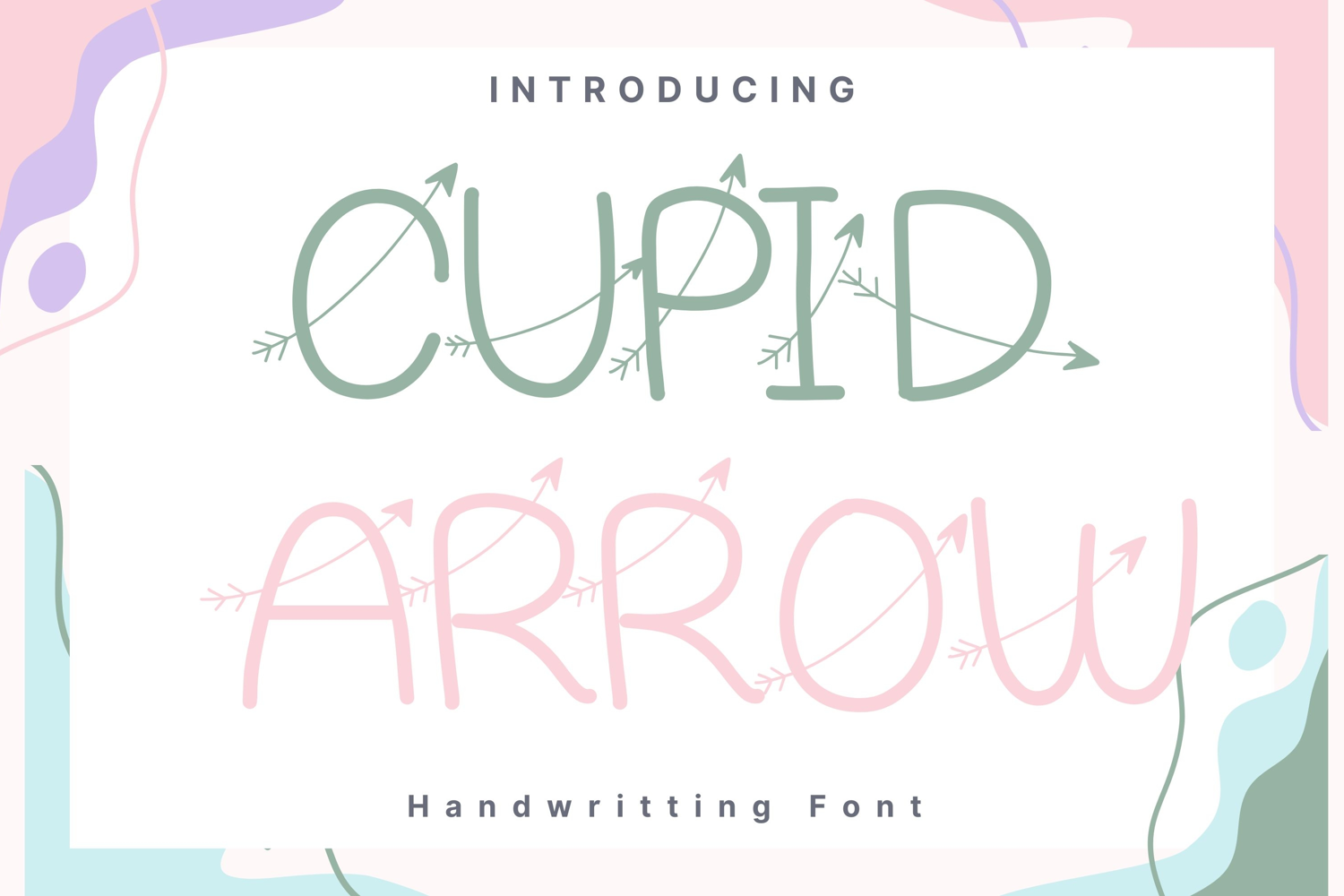
Cupid Arrow Style
Cupid-Arrow
Cupid Arrow Script is a quirky and adventurous decorative font with hand-drawn arrows piercing through every letterform. The font combines a clean, rounded character style with playful directional arrows, making it perfect for love-themed designs, boho wedding invites, Valentine’s Day prints, rustic apparel, and travel-inspired branding. Whether you're aiming for whimsical romance or wanderlust energy, this font adds movement, charm, and a touch of mischief to your project.